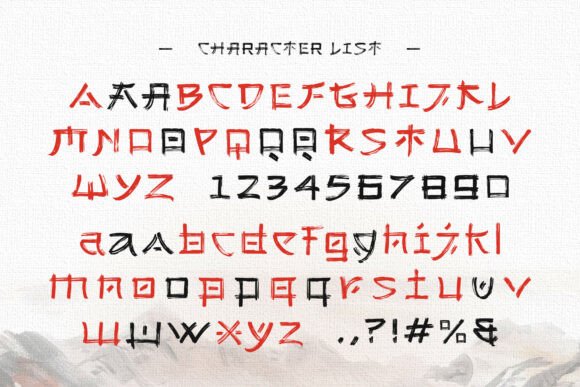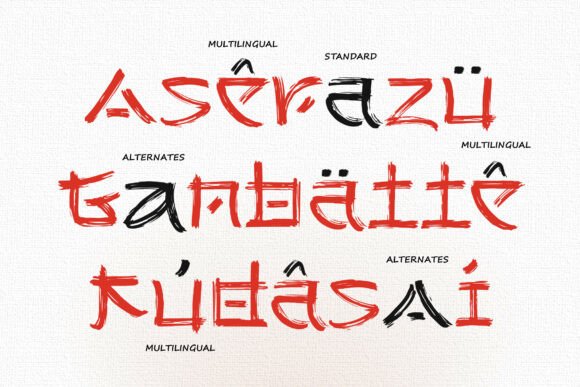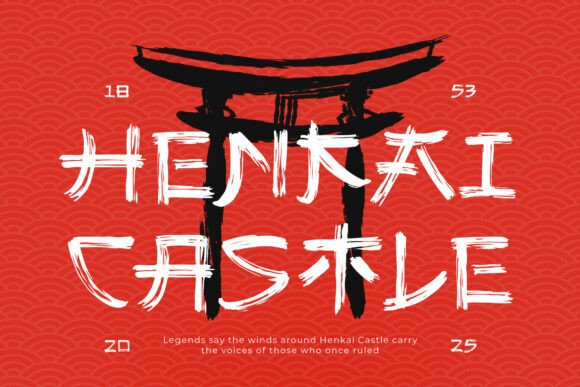
Introduction to Mayashita Font
Mayashita is an authentic Japanese brush font that captures the raw, natural texture and dynamic energy of traditional hand-painted lettering.
With its distinctive rough edges and fluid, expressive strokes, this typeface evokes the genuine feel of sumi-e calligraphy Perfect for food branding, streetwear apparel, artistic posters, packaging, merchandise, logo, and designs seeking an Asian-inspired, handmade, or bold visual identity, Mayashita infuses your projects with a unique blend of casual charm and powerful artistic flair.